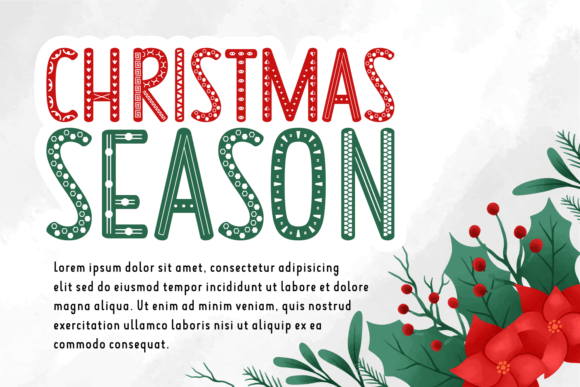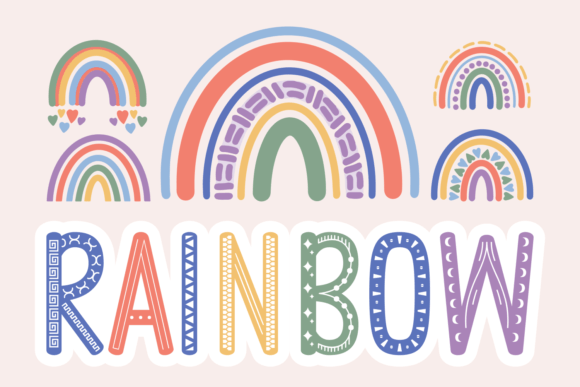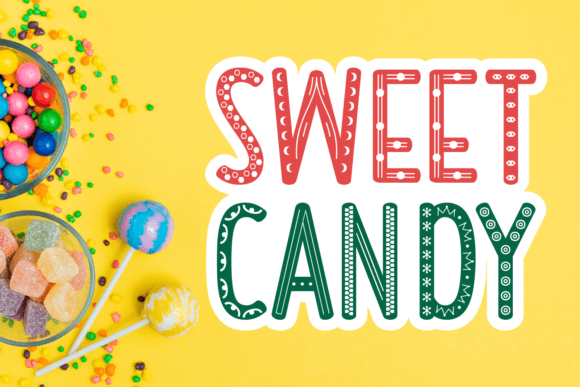
Introduction to Matilda Beatrix Font
Do you remember the moment when a particular font captured your attention and made you feel like your design project just took off? For many designers, that moment is a turning point that sets the tone for their entire creative process. It happened to us when we stumbled upon the Matilda Beatrix Font – a playful and fabulous decorative font that adds a touch of whimsy to any design.
What makes the Matilda Beatrix Font truly special is its versatility and high-quality design. With its intricate shapes and decorations, it’s perfect for adding a pop of personality to your next creative project. Whether you’re working on a logo, a social media graphic, or a flyer, this font is sure to make your design stand out. And the best part? You can download it for free, making it an invaluable resource for designers of all levels.
Key Features of Matilda Beatrix Font
- High-quality design resource ideal for creative projects, including invitations, greeting cards, and other decorative elements.
- Features a unique, whimsical design with intricate details and ornate flourishes, perfect for adding a touch of elegance to any project.
Honest Review: Matilda Beatrix Font
I recently had the chance to work with the Matilda Beatrix Font, and I must say it’s been a great addition to my design resource library. ✨ The font is high quality, with beautiful and elegant lettering that’s perfect for any creative project.
- It has a wide range of characters, including uppercase and lowercase letters, numbers, and punctuation marks.
However, there are a few limitations to keep in mind ⚠️. The font is a bit on the heavier side, which can make it difficult to read in smaller sizes. Additionally, the font’s style may not be suitable for all types of projects – it’s best suited for more formal or elegant designs.
Overall, I’m really impressed with the Matilda Beatrix Font. It’s a great resource for designers who need a high-quality, elegant font for their creative projects. With a bit of caution and consideration for its limitations, I’d highly recommend giving it a try.
Getting the Most Out of Matilda Beatrix Font
Here are some tips to get the most out of the Matilda Beatrix Font:
1. Experiment with different font sizes and styles.
2. Combine the font with other design elements for a unique look.
3. Use the font in various creative projects, such as social media graphics, posters, and flyers.
The Matilda Beatrix Font is suitable for various design projects, including:
1. Social media graphics.
2. Posters and flyers.
3. Branding materials.
4. Web design.